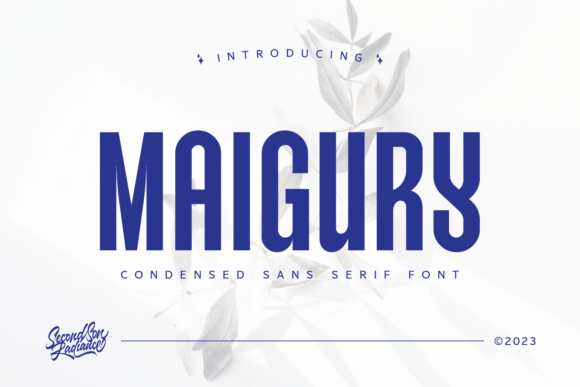
Step into the realm of sophistication and charm with Maigury Font, a Japanese-inspired sans serif font that exudes elegance and femininity. This meticulously crafted font family is designed to elevate your creative projects to new heights of luxury and allure.
Unleash your creativity with Maigury's versatile charm, seamlessly adapting to a wide range of design needs. From captivating logos and branding to modern advertising campaigns, Maigury's delicate strokes add a touch of grace and refinement to any project.
Embark on a journey of imagination with Maigury, where your designs take center stage. Picture your business cards adorned with Maigury's elegant lines, making a lasting impression on clients and colleagues alike. Enchant your holiday and travel designs with a touch of Japanese mystique, transporting your audience to faraway lands.
Maigury's versatility knows no bounds. Its delicate curves and flowing lines bring fashion and music designs to life, while its bold presence commands attention in animation and movie titles. Create striking posters with quotes that resonate, or design book covers that capture the essence of fantasy and adventure.
Elevate your editorial designs with Maigury's timeless beauty, adding a touch of sophistication to every word. Transform your website or blog into a visual masterpiece, where Maigury's graceful characters dance across the screen. Create custom cards that convey your heartfelt messages with a personal touch.
With Maigury Font, the possibilities are endless. Dive into the world of creativity and let your imagination soar. Experience the elegance, charm, and sophistication that Maigury brings to your designs. Embrace the Japanese vibe and add a touch of luxury and femininity to your projects.